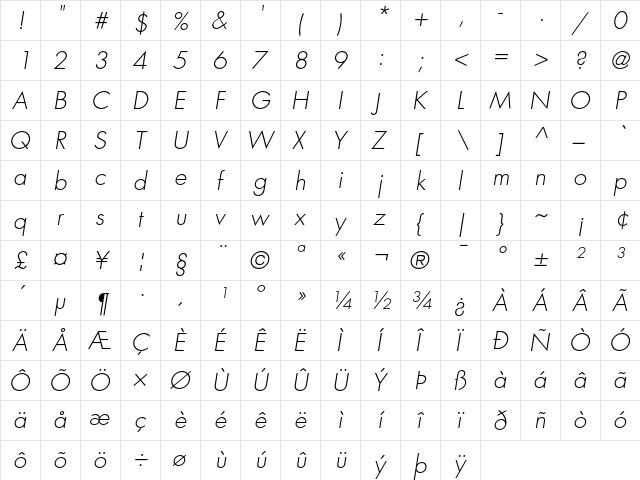
Futura Light Oblique
Futura channels digital-age aesthetics through its sharp, structured letterforms — ideal for brands that want to signal innovation. The slanted form adds forward momentum and visual energy. Its slender proportions lend an understated elegance to any composition.
Pro Tip: Try Futura with generous letter-spacing in UI labels and navigation — the geometric forms benefit from room to breathe.